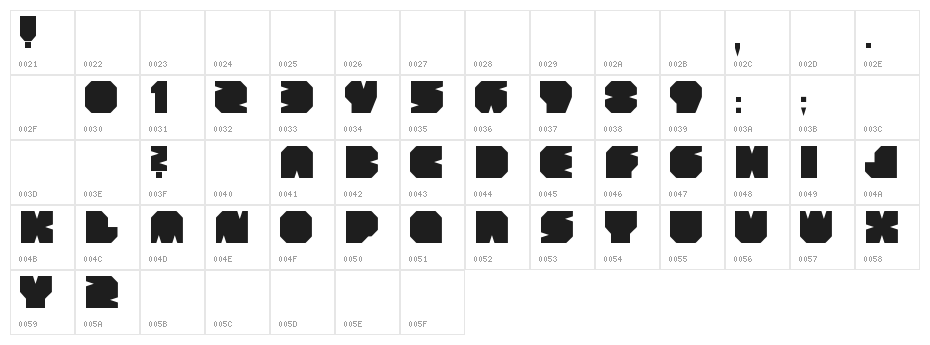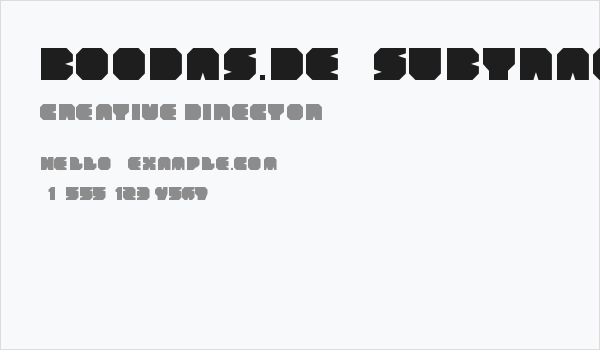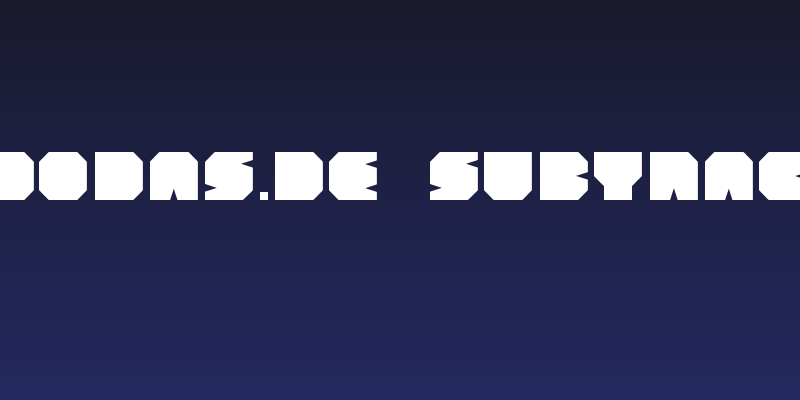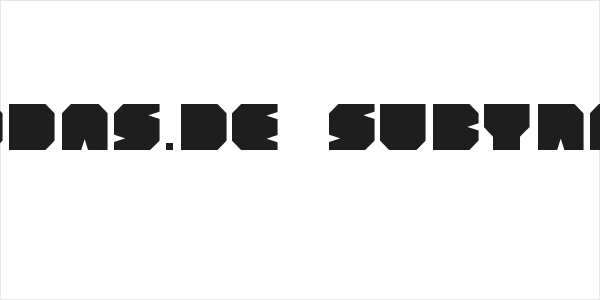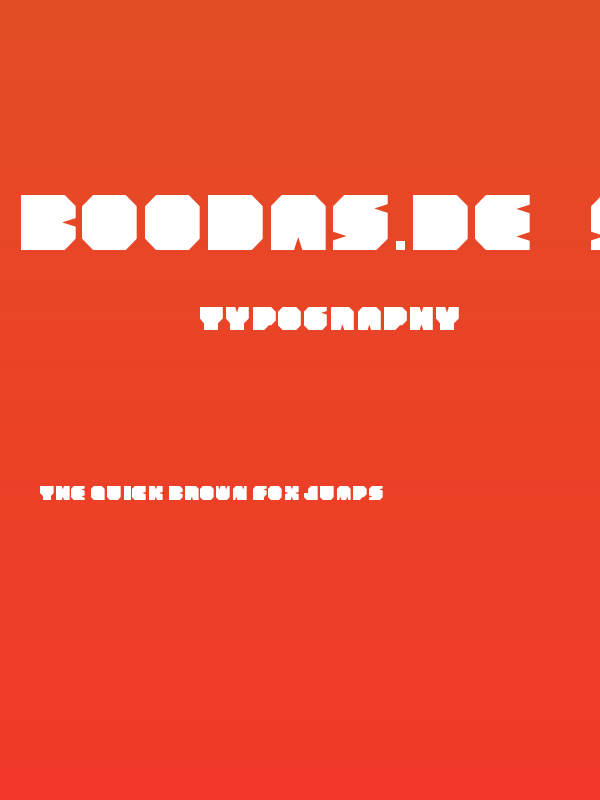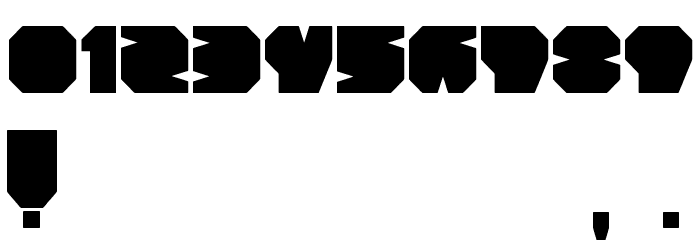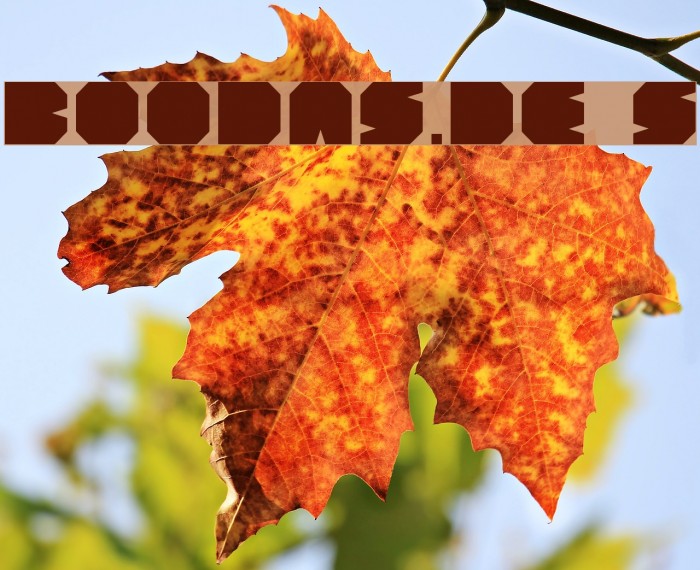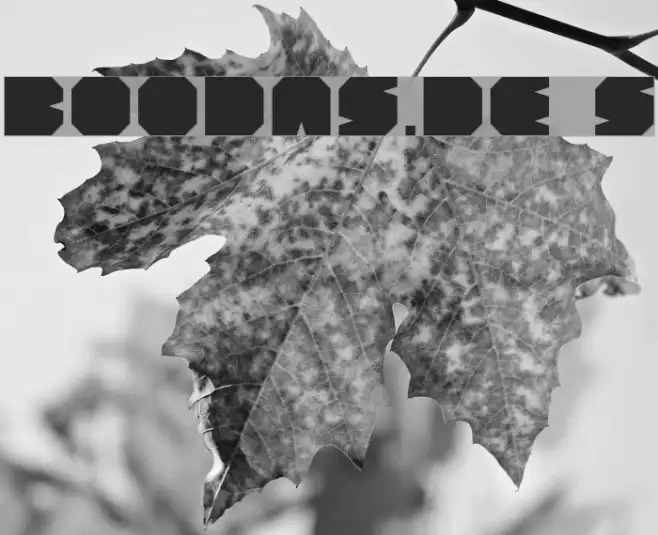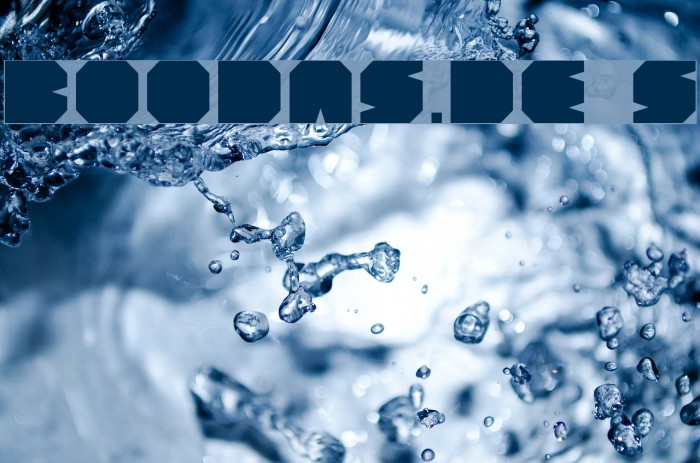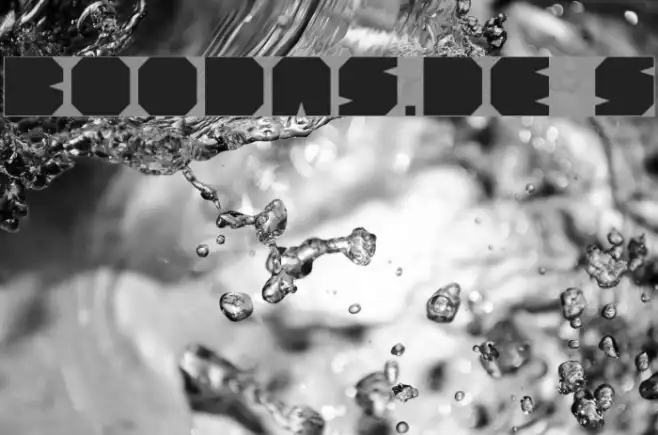
BOODAS.DE | Subtract Font
BOODAS.DE | Subtract Description
This font features a bold and geometric design with a strong presence. The characters are constructed with sharp angles and a blocky appearance, giving it a futuristic and industrial feel. The uppercase and lowercase letters maintain a consistent style, with minimal differentiation between them. Numbers and special characters follow the same angular and robust design, ensuring uniformity across all glyphs. The font's unique style makes it stand out, suitable for projects that require a modern and edgy look.
| Proposed Projects | Ideal for branding, posters, video game graphics, and any project seeking a modern, edgy aesthetic. |